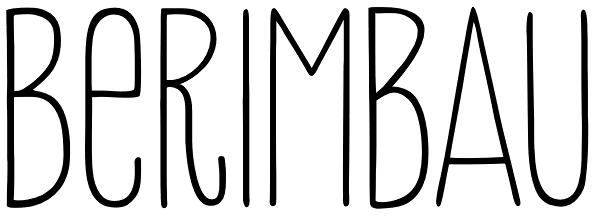
Berimbau
Berimbau is a whimsical narrow hand-drawn typeface. It’s stylish, versatile and loaded with amazing OpenType features that do their magic in OpenType savvy applications. Its sprightly swashes and twisting stylistic alternates (say that 3 times...